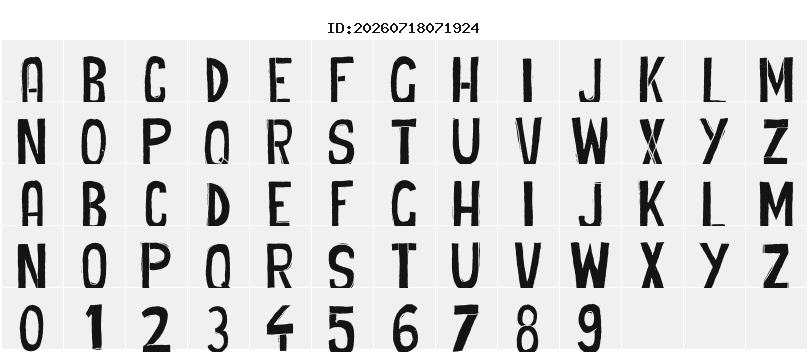
• Font Name: Cheap Potatoes Black Thin
• Designer: imagex
About Cheap Potatoes Black Thin.ttf
Cheap Potatoes Black Thin.ttf is a modern, elegant sans-serif font designed for ultimate readability and visual harmony. Perfect for branding, headlines, web design, and print materials.